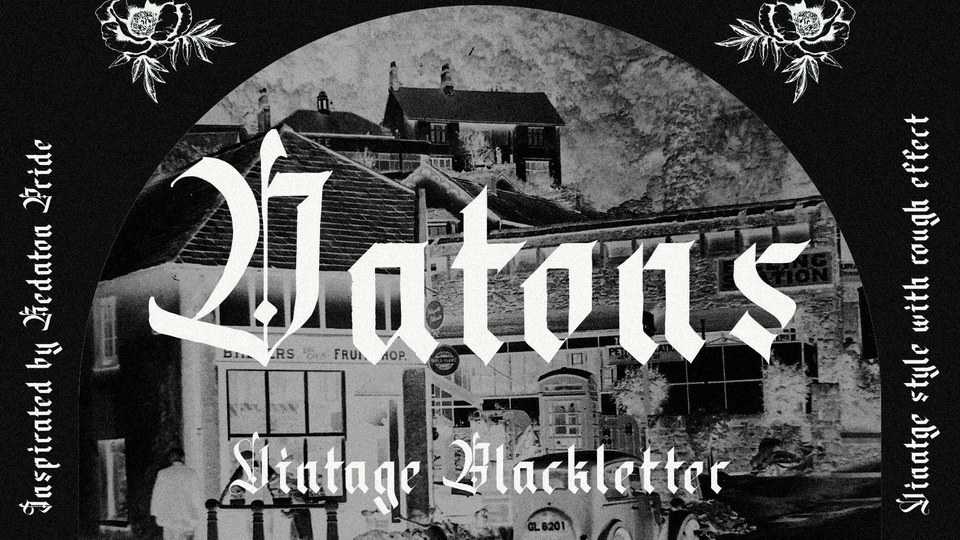
Download Datons font, a blackletter display typeface made with a hand crafted touch. Datons is perfect for headlines or brand names or any other spooky and vintage design needs.